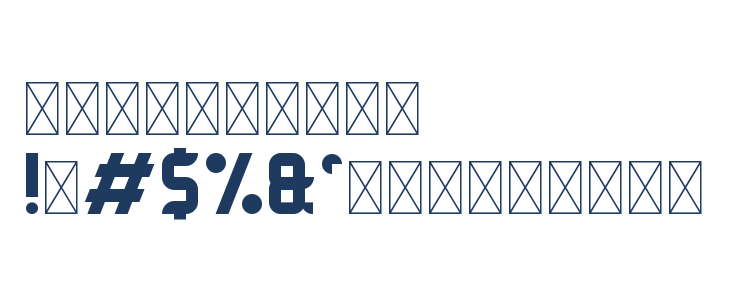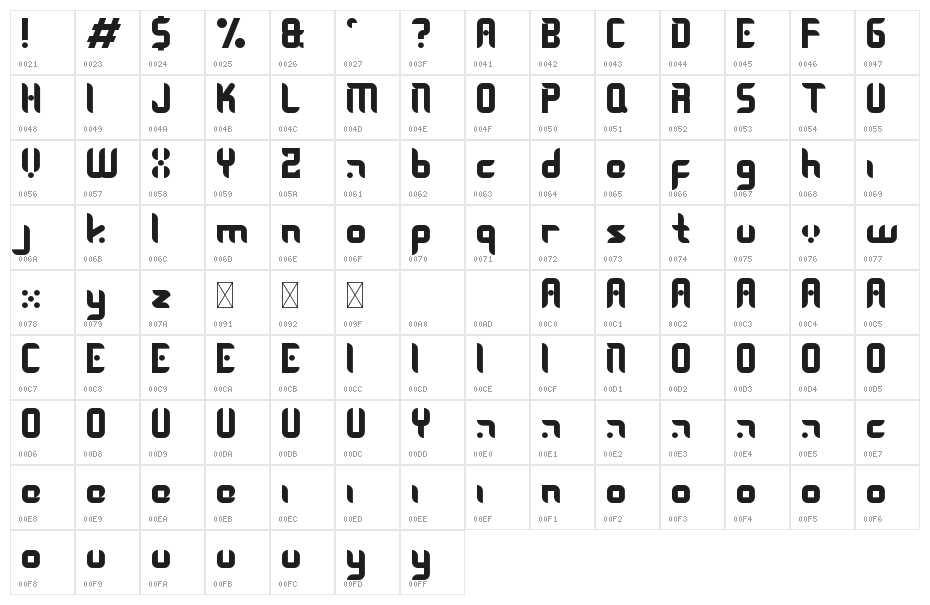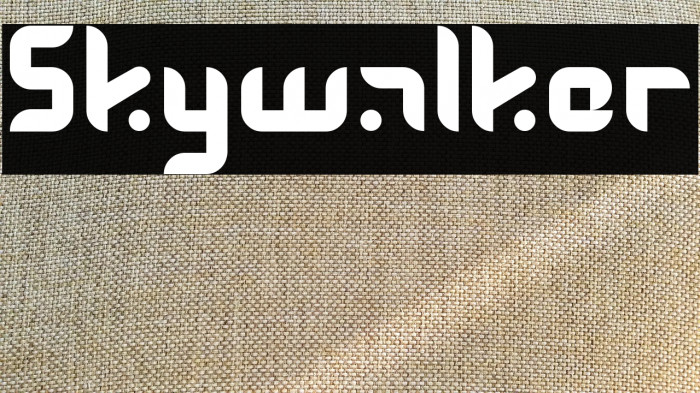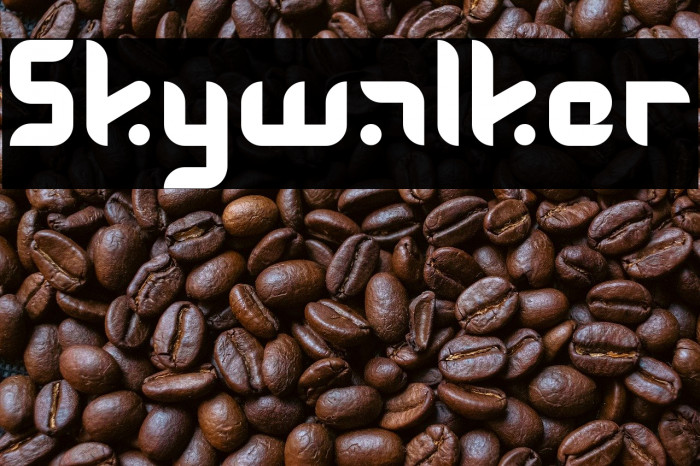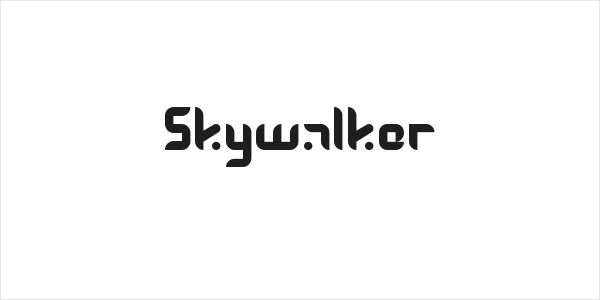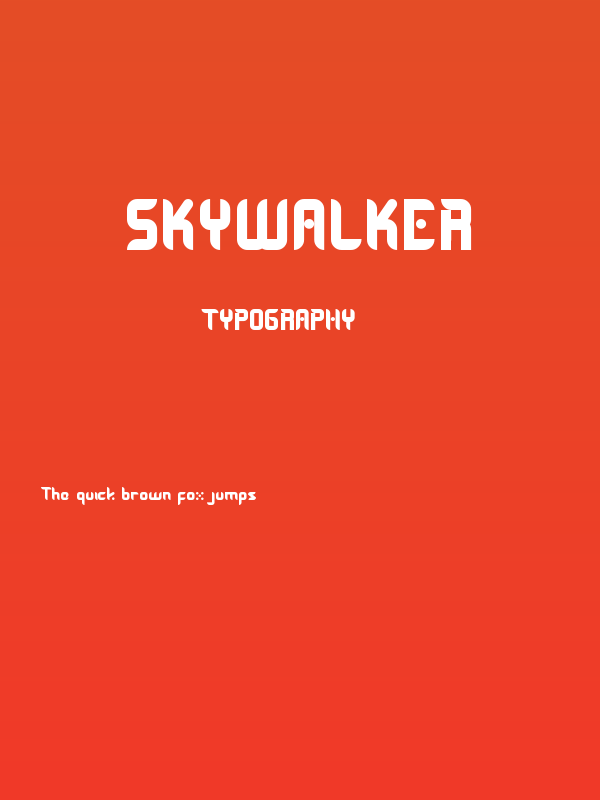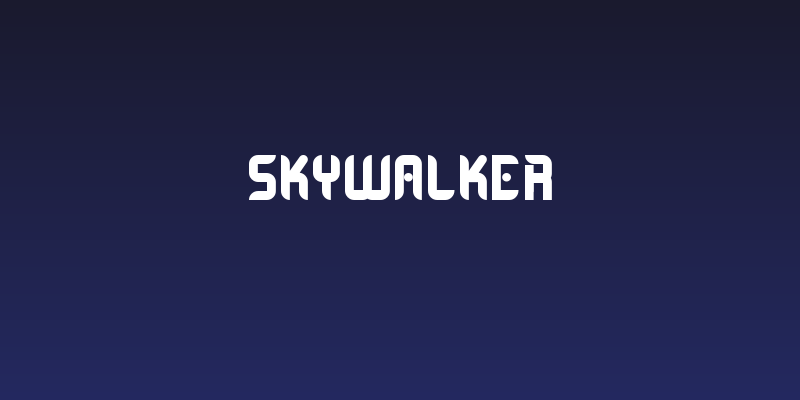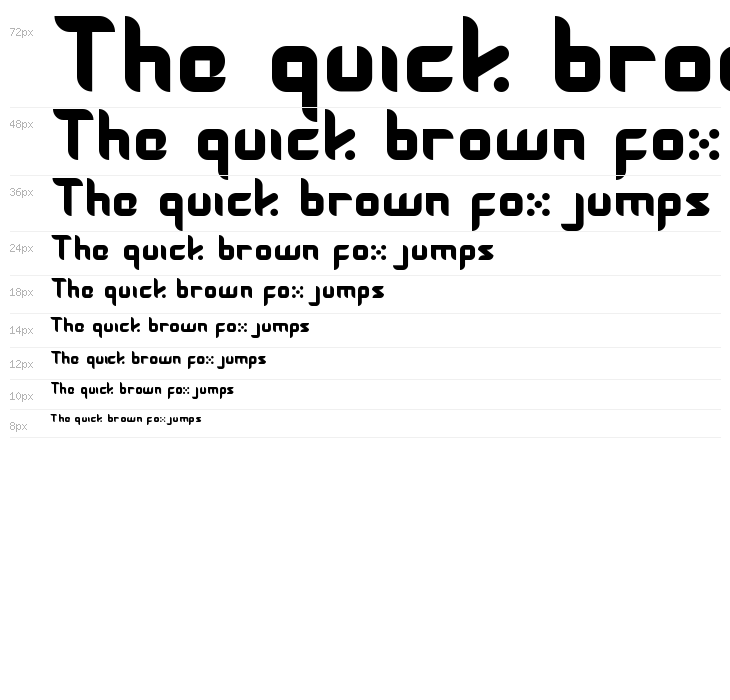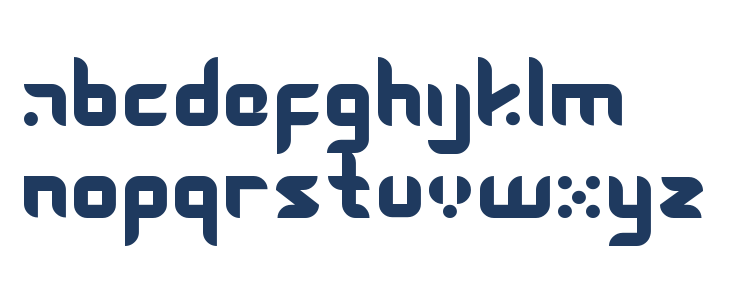
Skywalker Font
Skywalker Description
This font features a futuristic and geometric design with bold, angular lines and unique cut-out elements that create a sense of movement and innovation. The uppercase and lowercase letters maintain a consistent style, with rounded edges and distinct geometric shapes. The font includes numerals and a variety of special characters, all designed to complement the overall aesthetic. Its bold presence makes it suitable for attention-grabbing headlines and modern branding projects. The spacing between characters is tight, enhancing its compact and cohesive appearance.